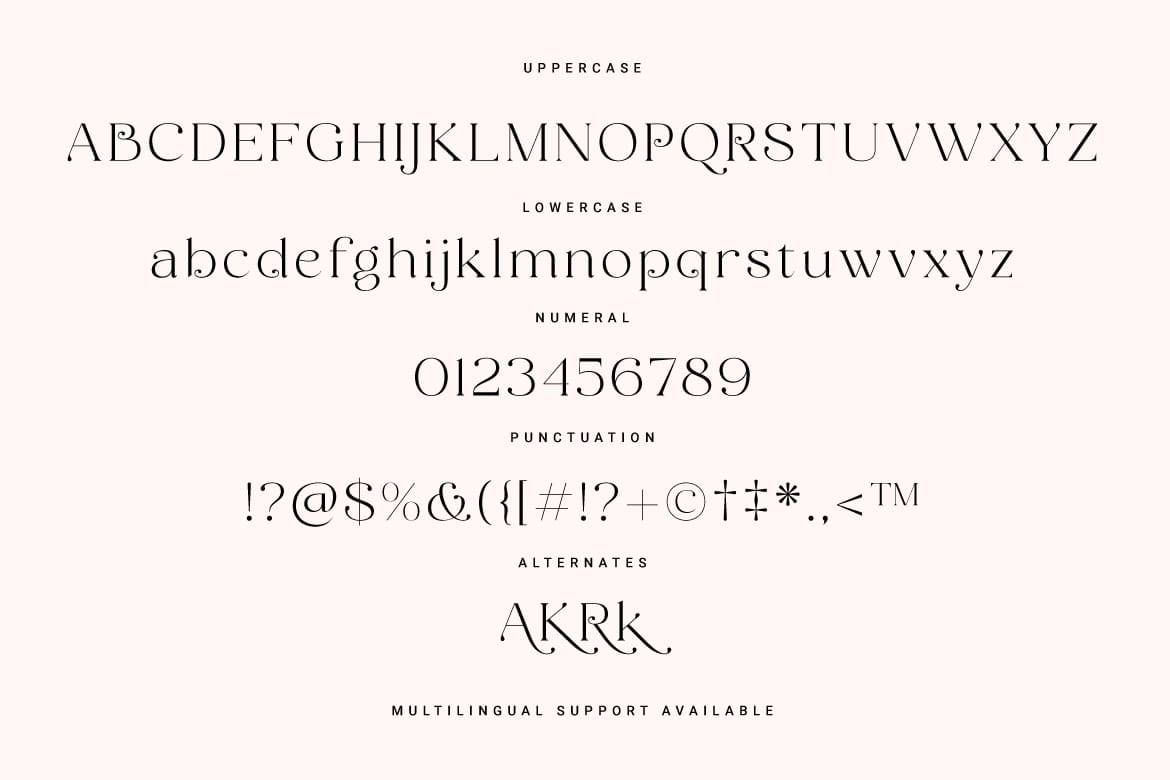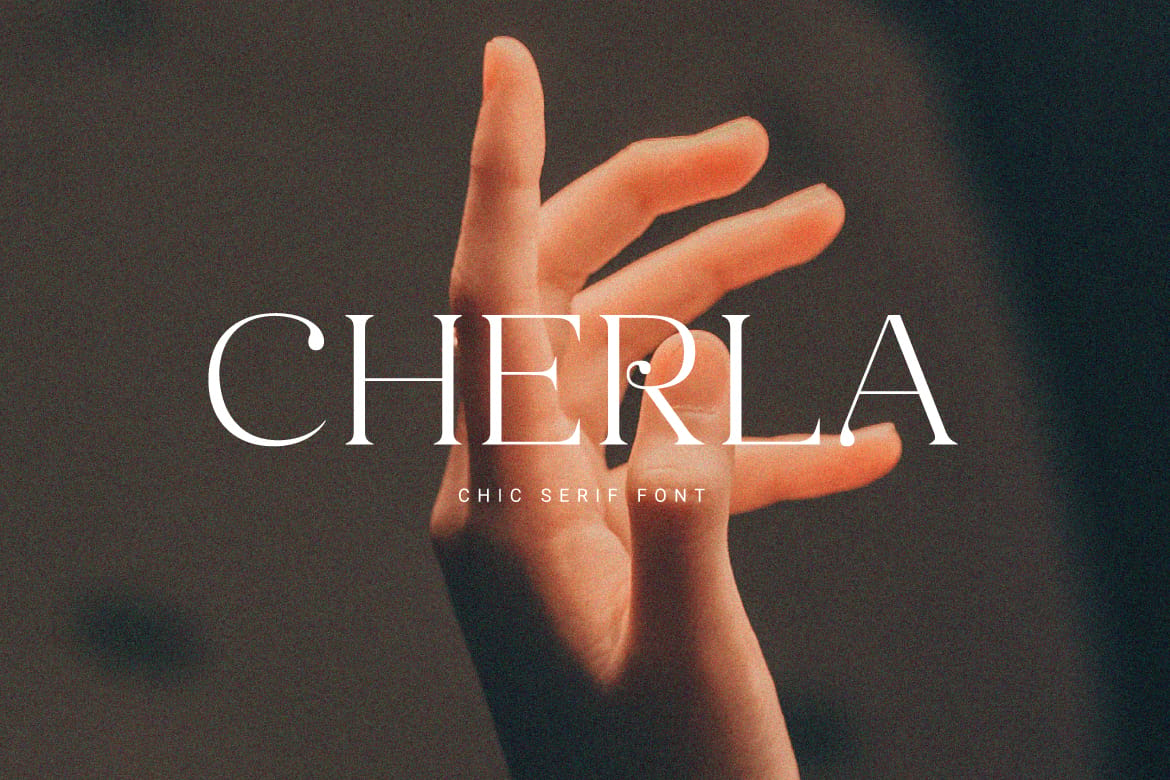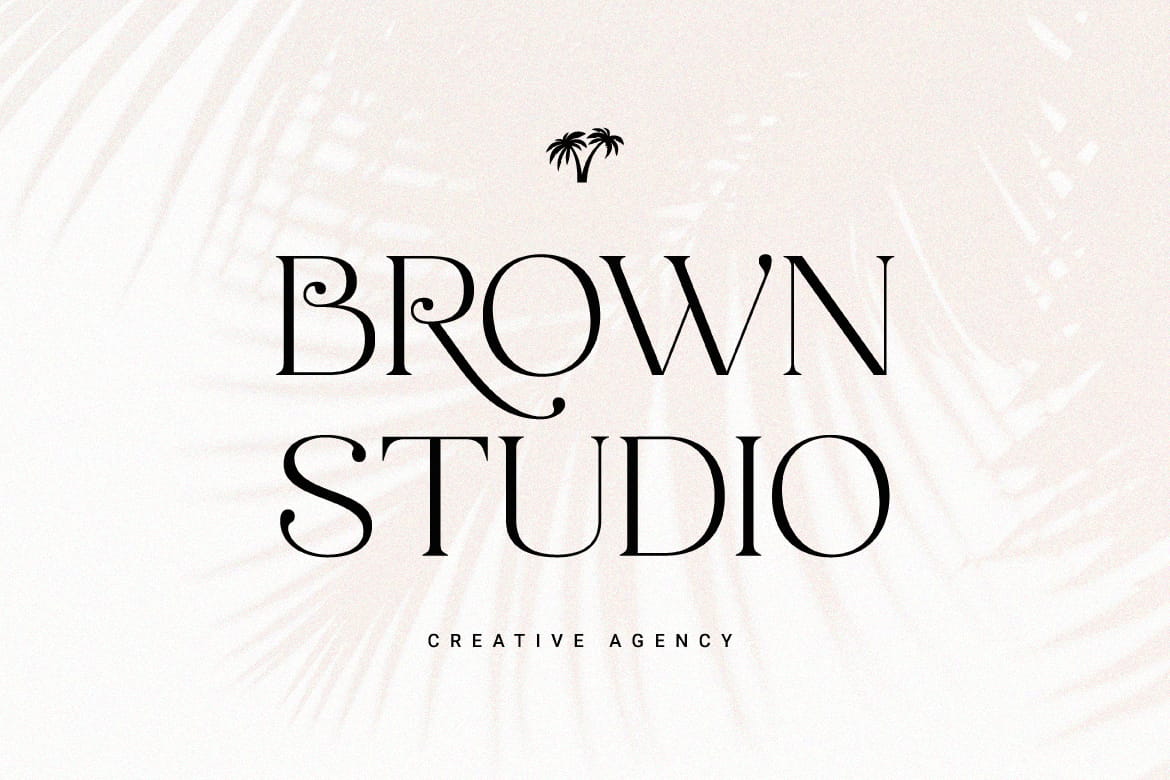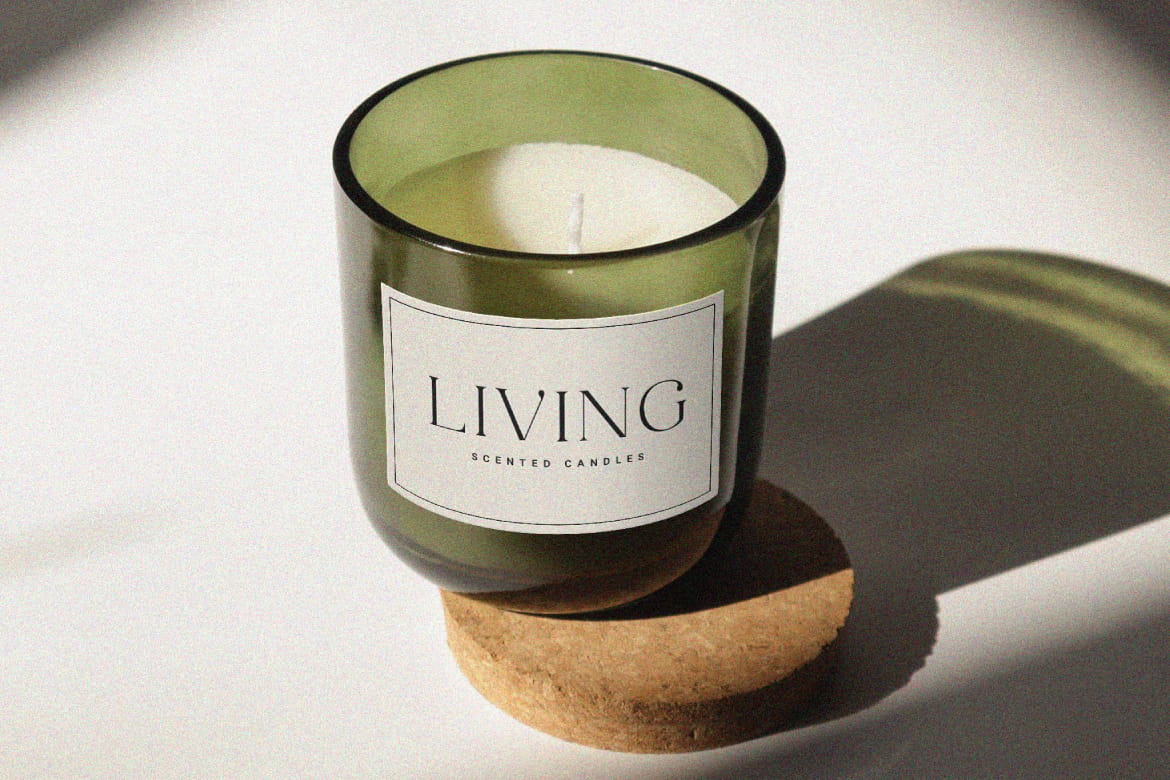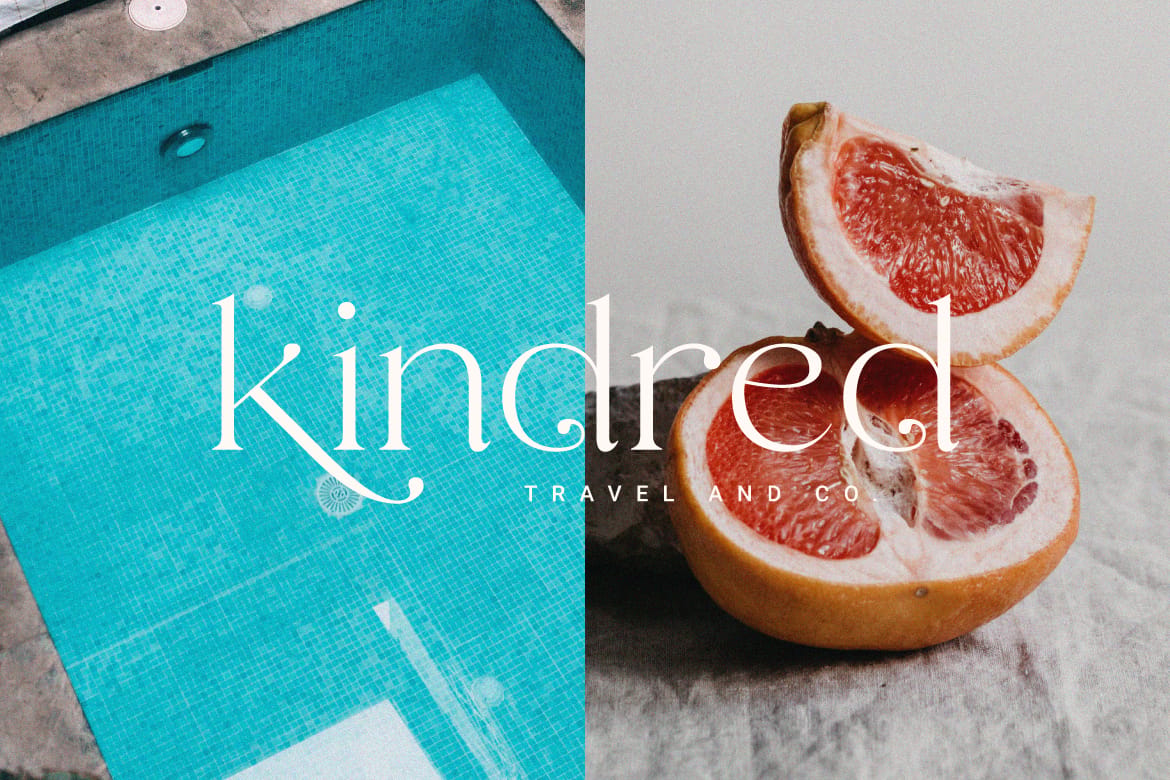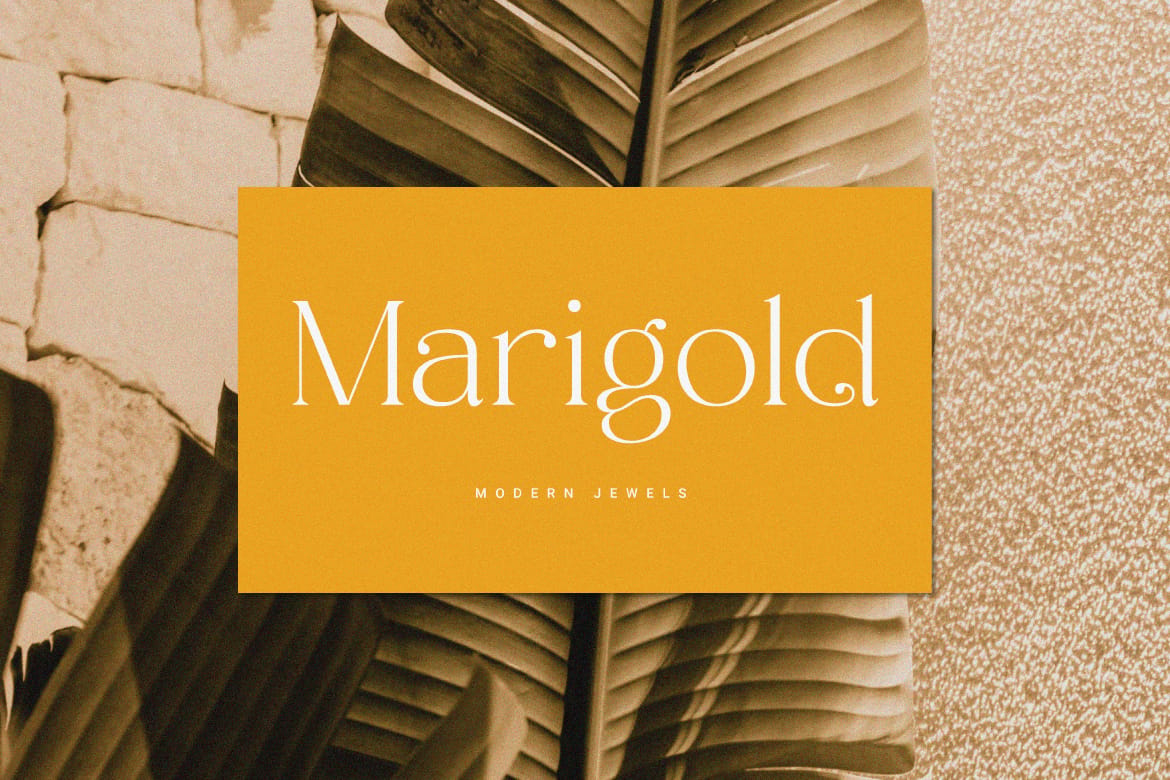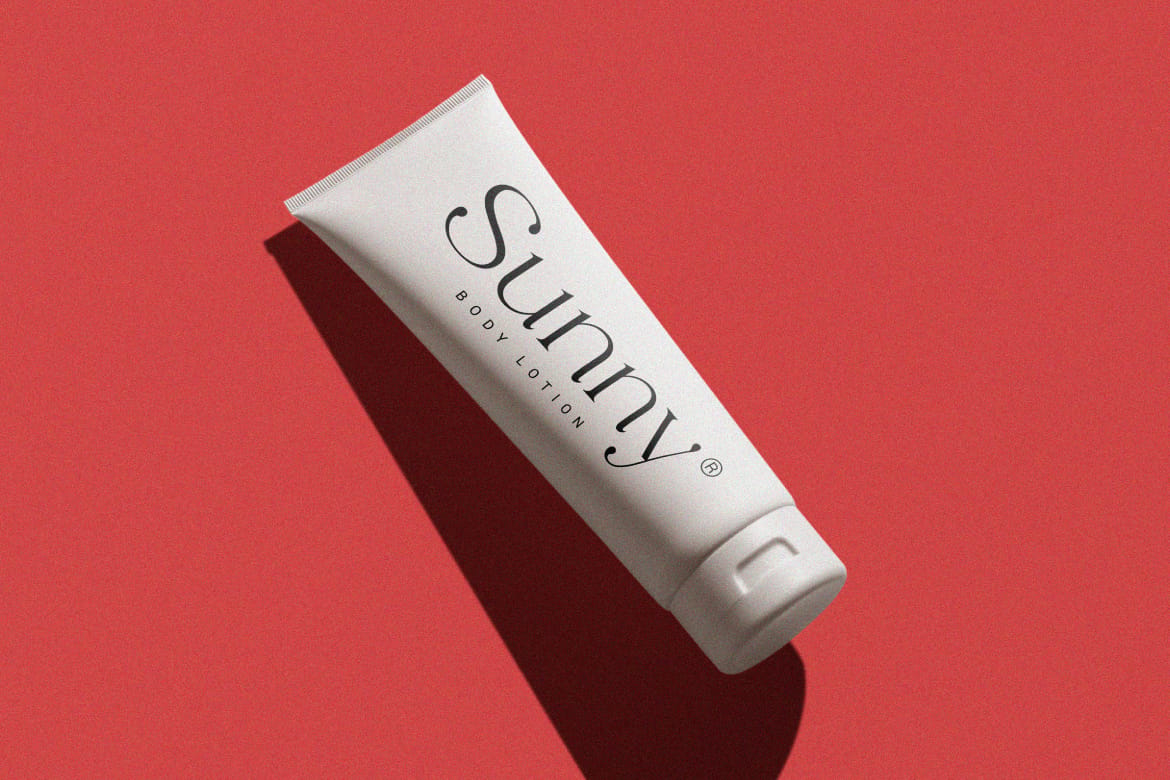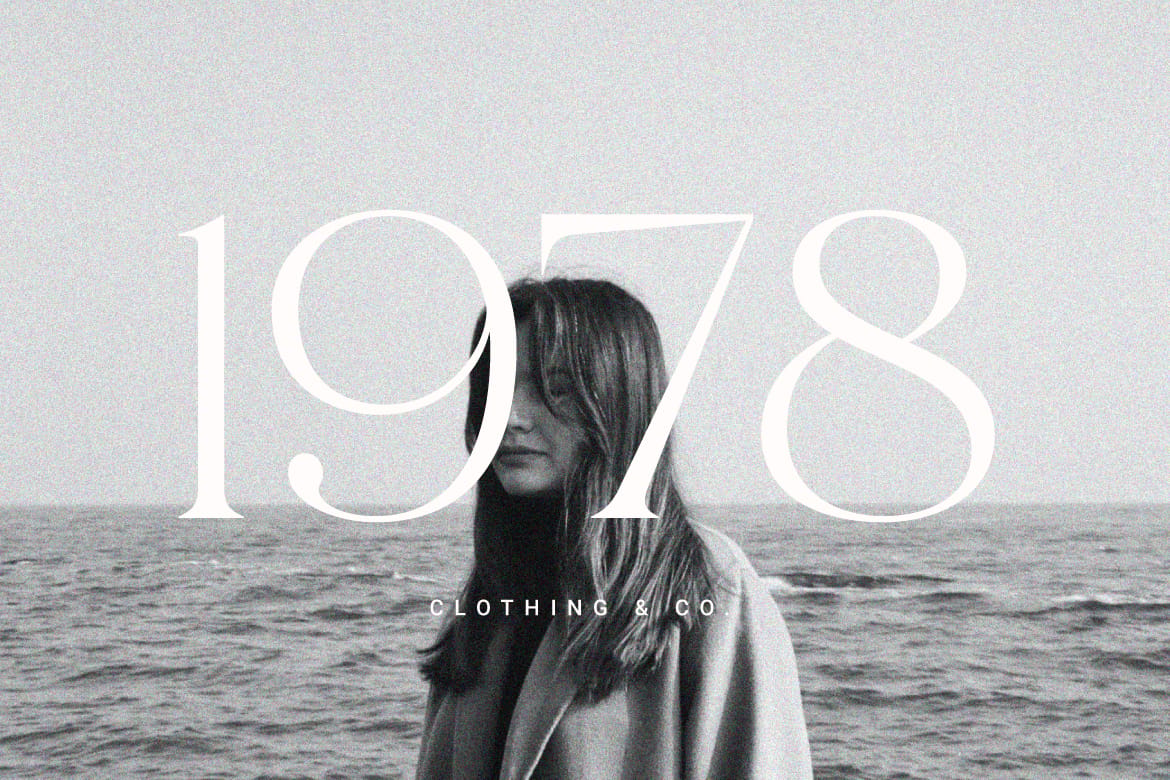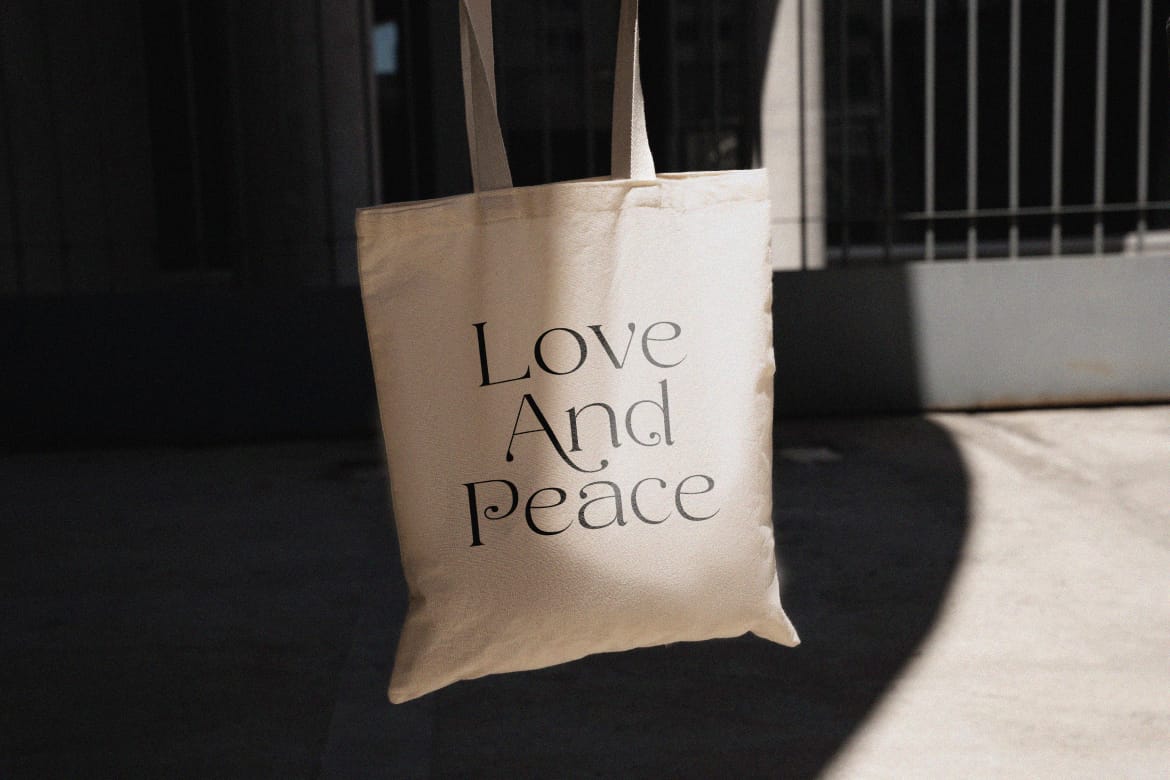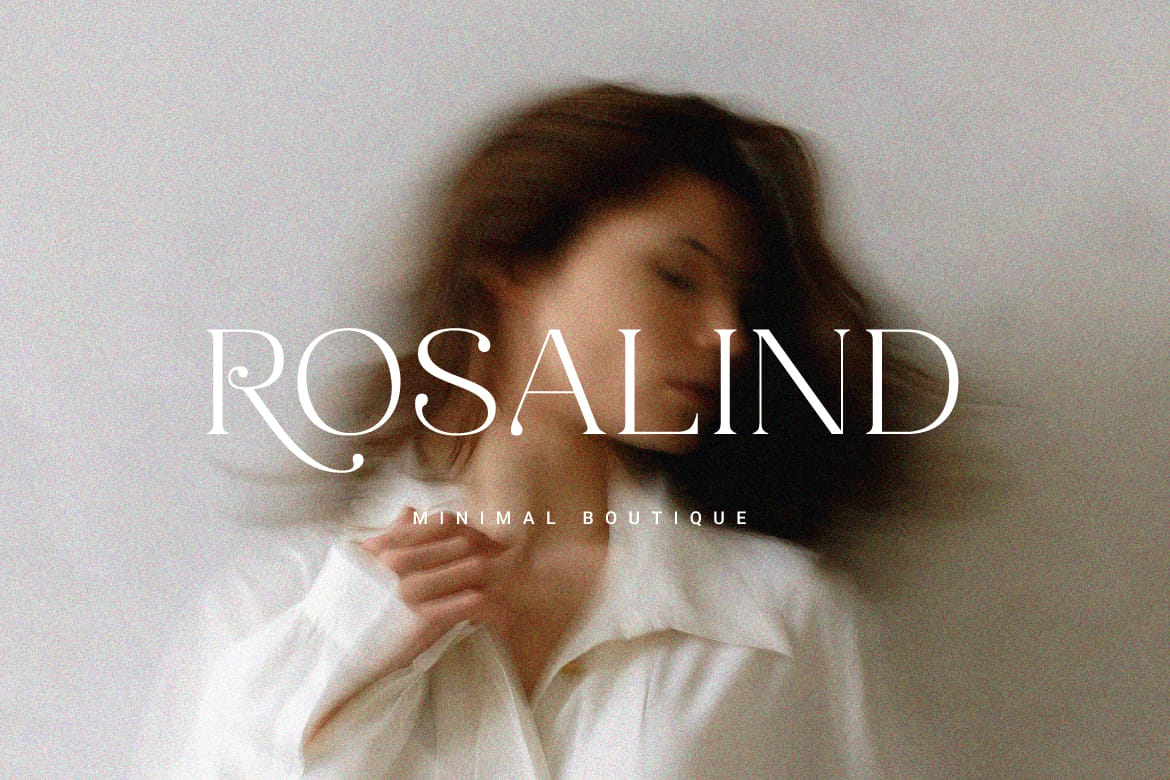
Cherla – Chic Serif Font by Prioritype Co.
Cherla is a modern serif typeface with a pretty and unique touch. Accompanied by several alternative characters to beautify. Suitable for logo design and branding.
Features: Uppercase, Lowercase, Numeral, Punctuation, Multilingual & Alternates.
Multilingual supported: Afrikaans, Albanian, Basque, Catalan, Danish, Dutch, English, Estonian, Filipino, Finnish, French, Galician, German, Indonesian, Irish, Italian, Luxembourgish, Norwegian Bokmål, Norwegian Nynorsk, Portuguese, Quechua, Romansh, Spanish, Swahili, Swedish, Swiss German, Zulu and more.
- Pretty, unique alternate characters
- Chic, feminine multilingual design